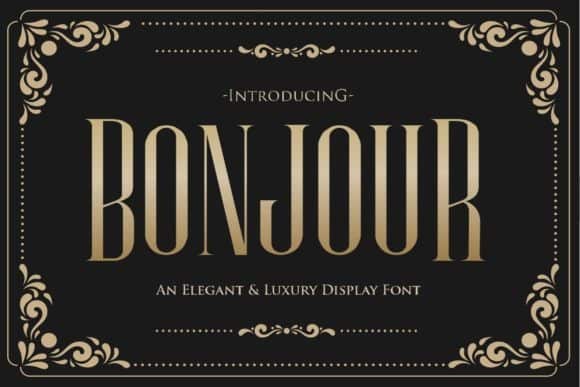
Bonjour Display Font Free
Bonjour Display Font is a serif font designed with carefully handcrafted. This typeface is designed and shared by Gilar Studio. It’s new elegant serif font that will bring in your projects a touch of luxury and style. It’s perfect match for logotypes, branding, wedding monograms and invitations, blog headlines and much more. Flip through all the previews and get inspired like I was while creating this font.
A modern take on a Caslon style typeface, It’s got hundreds of characters and ligatures plus all those European letters! Bonjour pairs perfectly with a light scripts font or minimal sans serif.